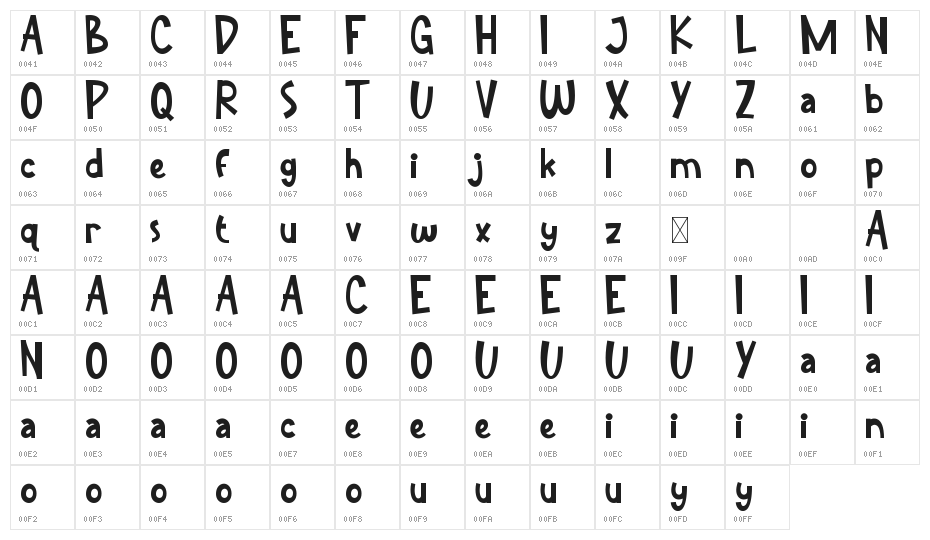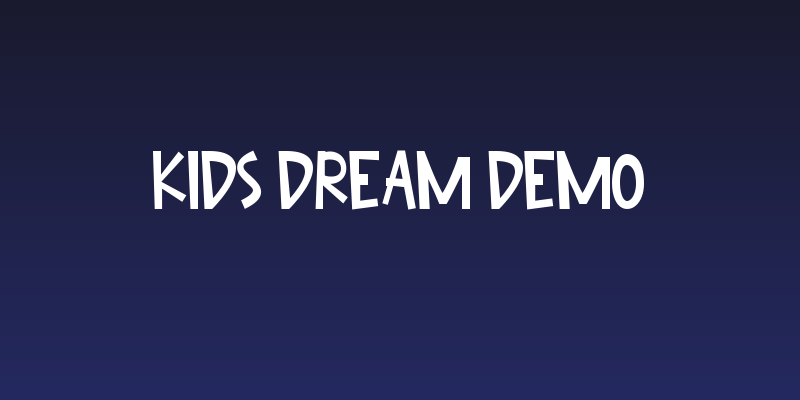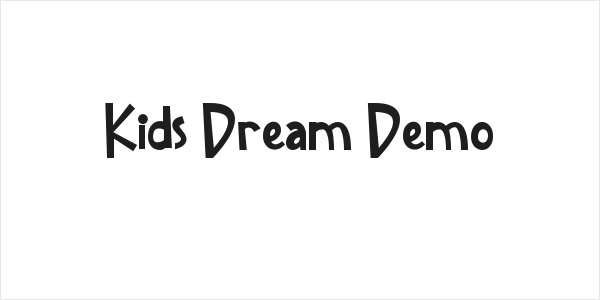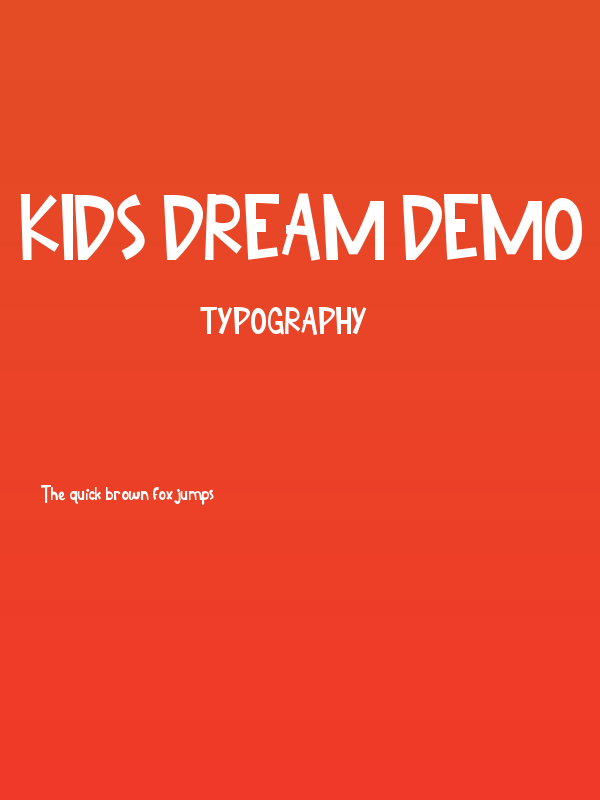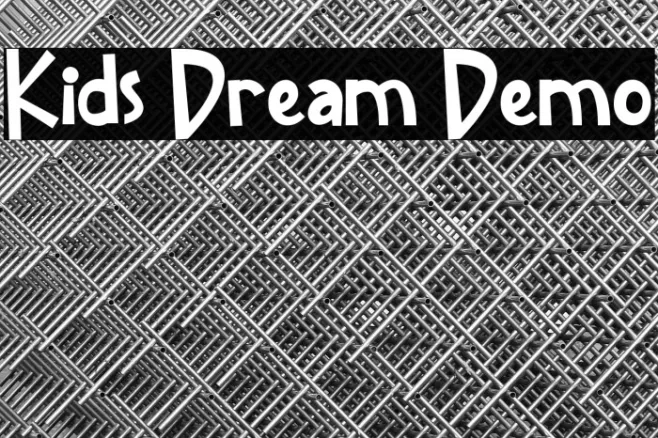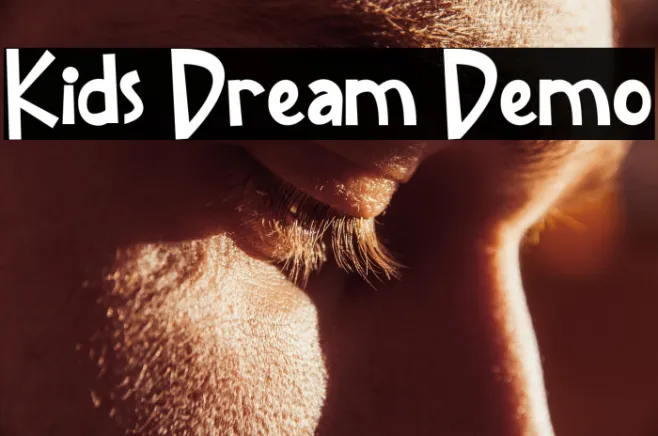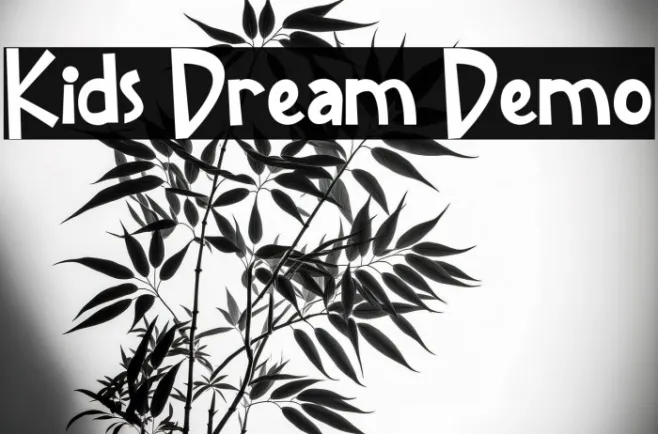
Kids Dream Demo Font
Kids Dream Demo Description
This playful and whimsical font features bold, rounded characters with a hand-drawn aesthetic. The letters have a slightly uneven baseline, adding to the casual and friendly appearance. The uppercase and lowercase letters are distinct, with the uppercase being more angular and the lowercase more rounded. The font exudes a sense of fun and creativity, making it ideal for projects aimed at children or those seeking a lighthearted tone. The numbers and special characters maintain the same playful style, ensuring consistency across all text elements.
| Proposed Projects | Ideal for children's books, educational materials, playful branding, and creative posters. |